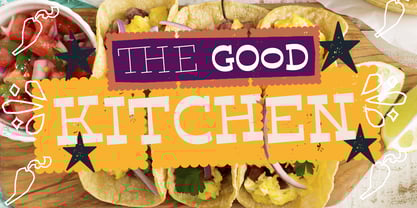
Nacho
by RodrigoTypo
Rodrigotypo emerges as a cutting-edge digital typeface foundry, distinguished by its focus on gestural characters and a collection of informal typefaces. This foundry represents an innovative fusion between artistic expression and textual communication, offering a wide range of typefaces that defy conventional conventions. The typefaces created are characterized by the fluidity and dynamism of their gestural features. Each letter appears to be hand-drawn with fluid, natural movements, bringing a touch of authenticity and originality to each composition. These fonts capture the essence of human creativity, adding an emotional dimension to written words.